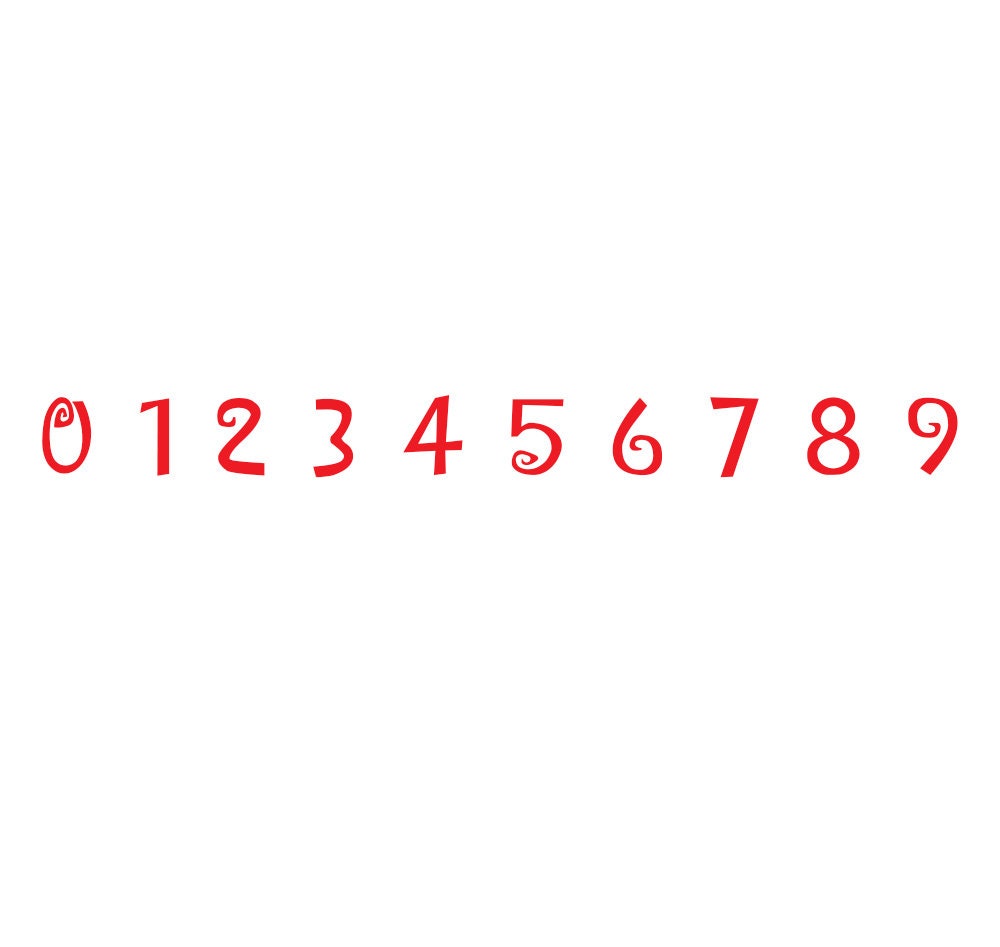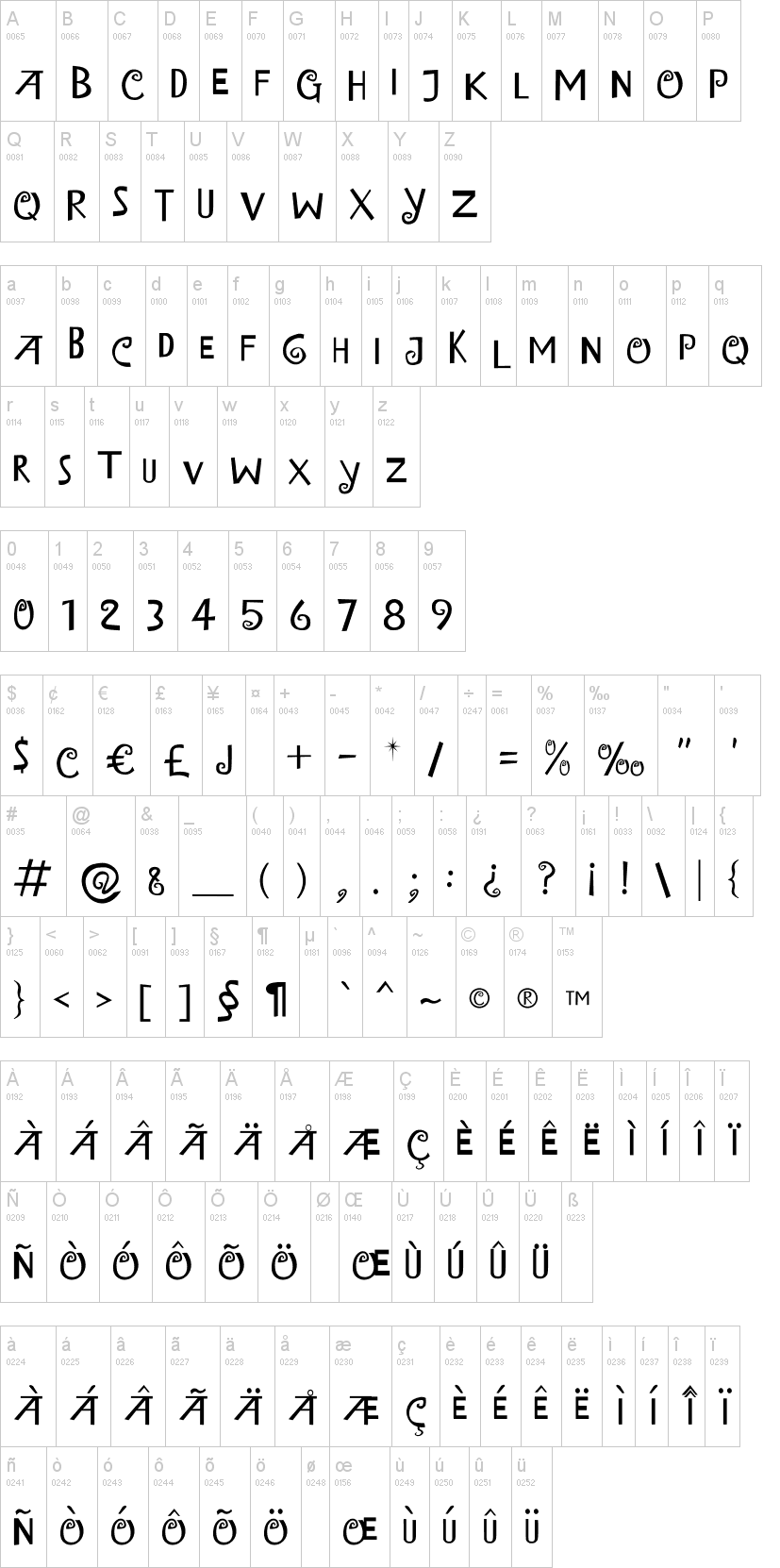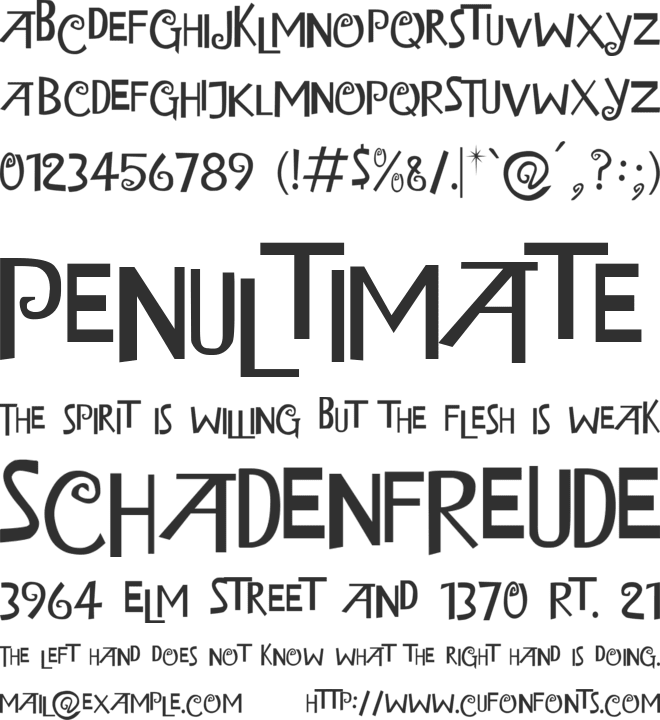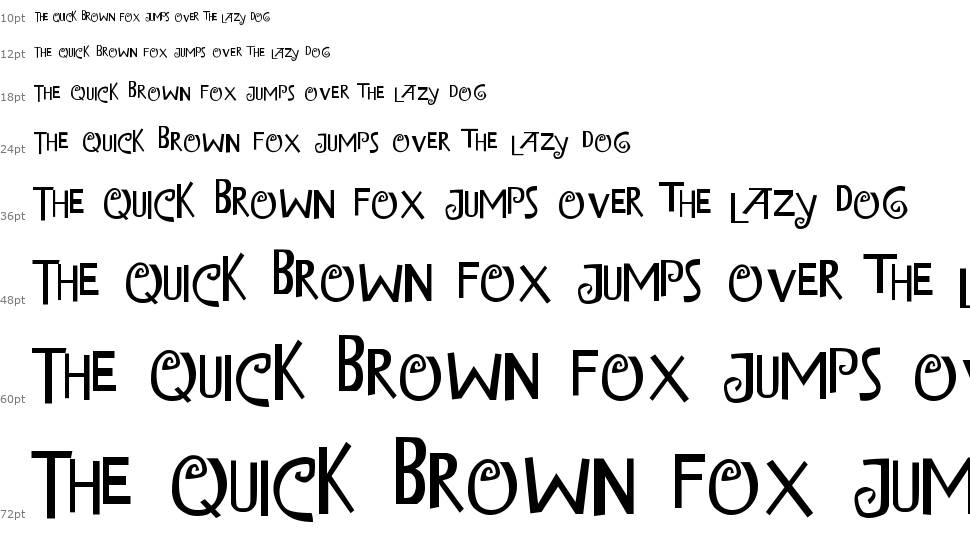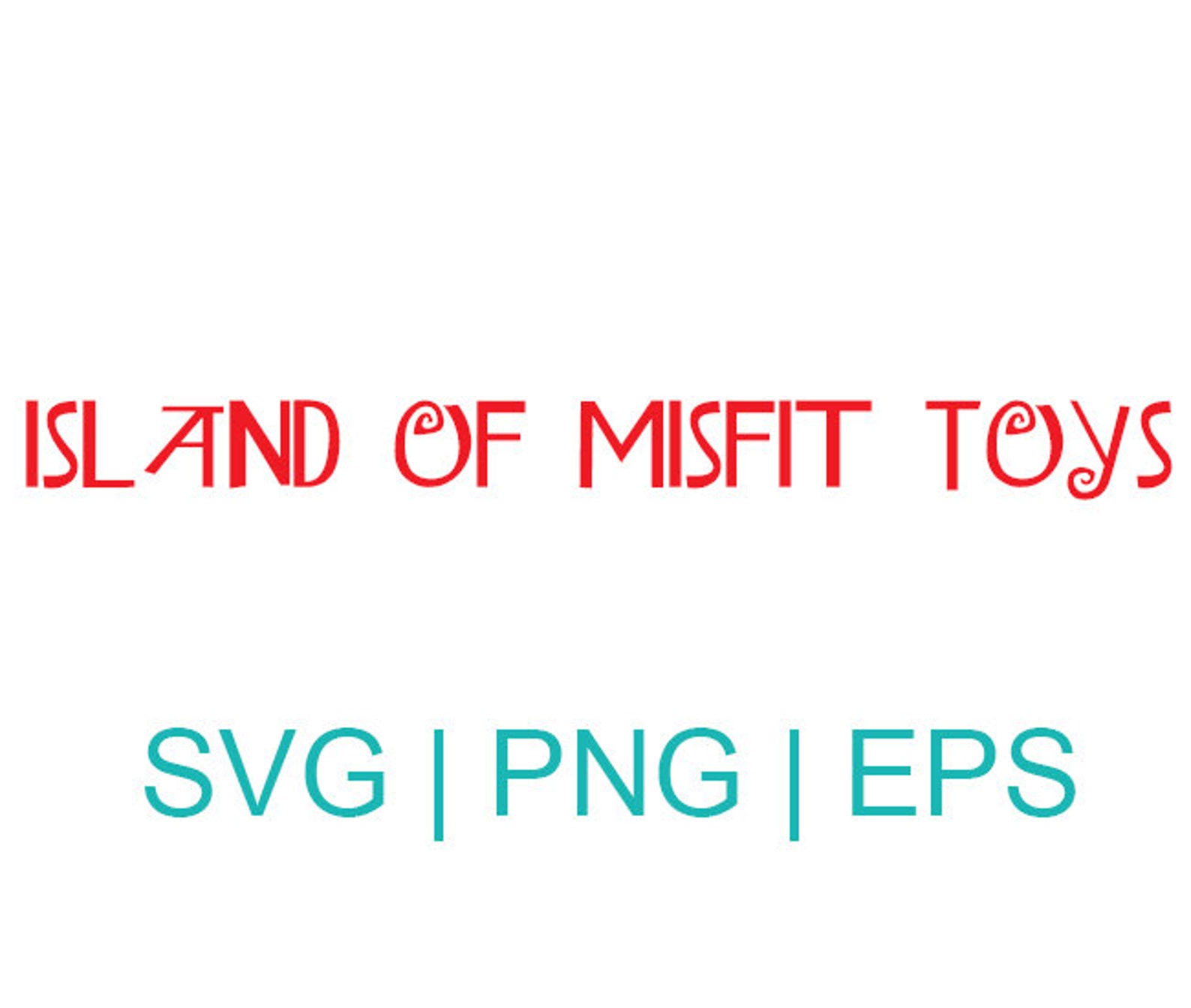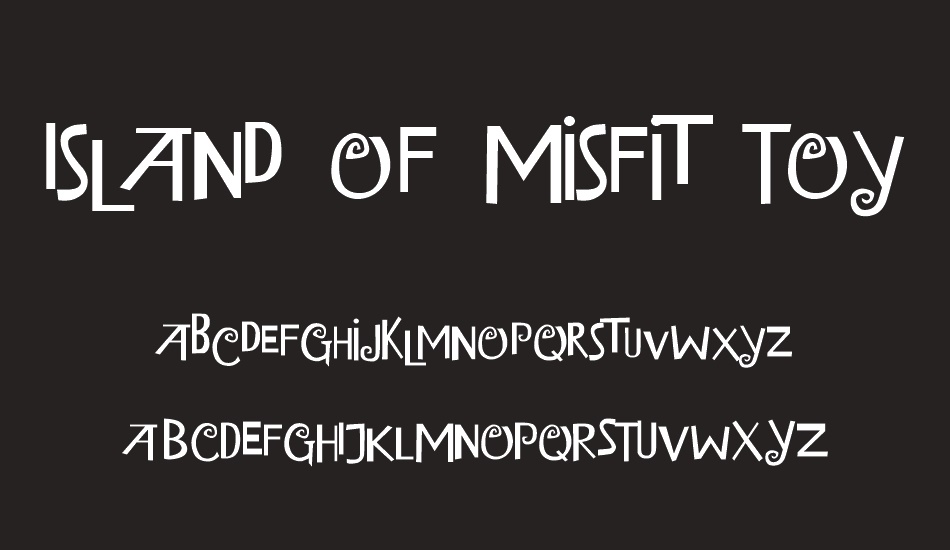
Island Of Misfit Toys Font
Island Of Misfit Toys Font - A freebie by steve ferrera in 2006, inspired by the title. Web island of misfit toys font download is available free from fontget. Island of misfit toys is a free font for personal use.
A Freebie By Steve Ferrera In 2006, Inspired By The Title.